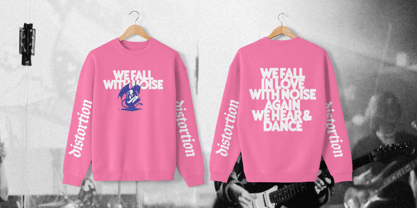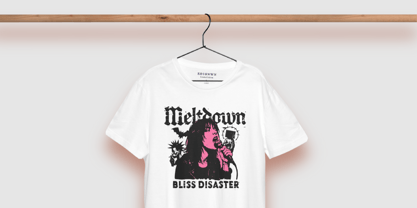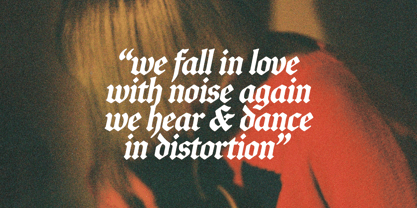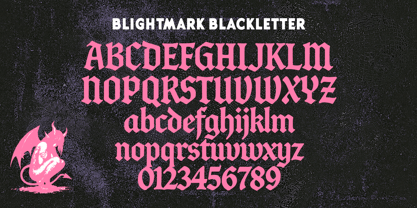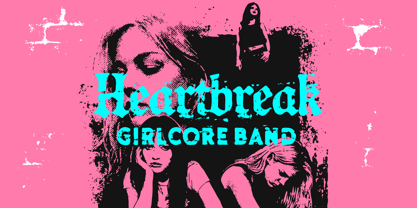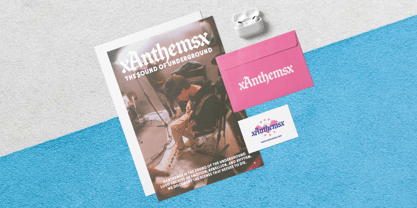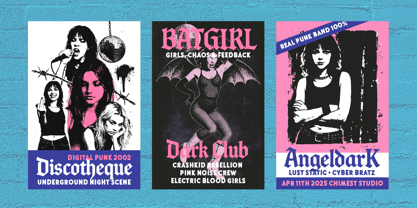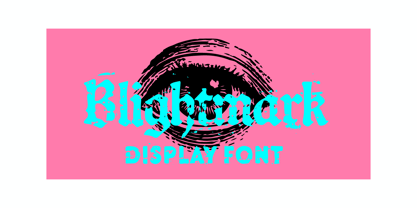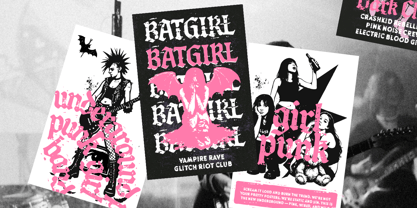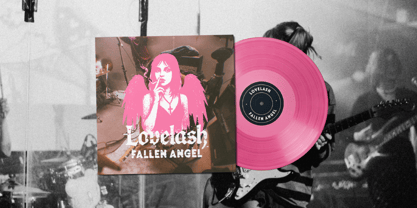
Blightmark
The Blightmark Font Family was designed by Edi Gunawan and published by Edignwn Type. Blightmark contains 6 styles and family package options.
Blightmark is a bold display font duo forged for punk energy and rebellious spirit. Designed for visual branding, band merch, and underground culture projects, this type system combines gritty blackletter flair with modern distortion — perfect for girl punk bands and raw DIY aesthetics. The jagged edges, textured ink, and heavy letterforms deliver a fierce visual voice that commands attention on posters, album covers, apparel, and editorial layouts. Blightmark includes: - 3 typefaces — Blackletter, Oblique, and Sans - 2 style options for each (Regular and Textured) - Uppercase, lowercase, numeral, symbol and punctuation in blackletter font - All-caps, numeral, symbol and punctuation in sans serif font - Multilingual support - PUA encoded for easy access